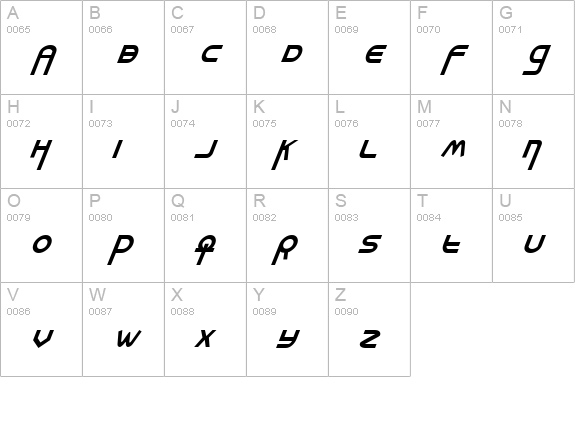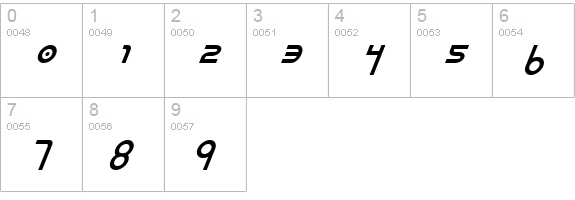
Milk Bar Italic is a distinctive, italic variant in the Milk typeface family \xE2\x80\x94 well suited to design and typography projects.
Introducing Milk Bar Italic font, a sleek and modern typeface that exudes elegance and sophistication. With its stylish italic design, Milk Bar Italic is perfect for adding a touch of flair to your projects. The unique curves and smooth lines of this font make it stand out and capture attention effortlessly. This versatile font is ideal for a wide range of design projects, from branding to packaging, invitations to social media graphics. Whether you're looking to create a chic logo or craft a refined poster, Milk Bar Italic is sure to elevate your work to the next level. Best of all, Milk Bar Italic is available for free download at FontsMarket.com. This means you can easily access this stunning font and use it in your projects without any cost. Don't miss out on the opportunity to add Milk Bar Italic to your font collection today and unleash your creativity with this stylish typeface.